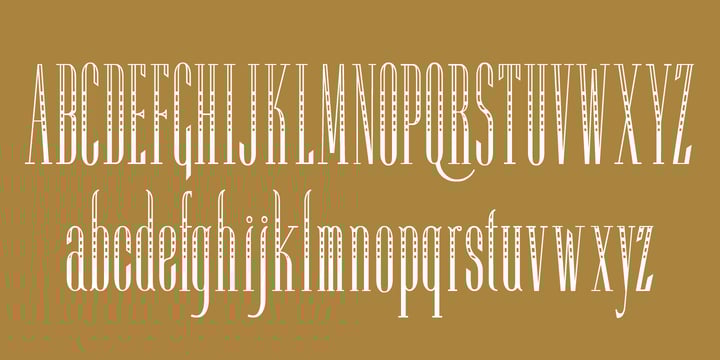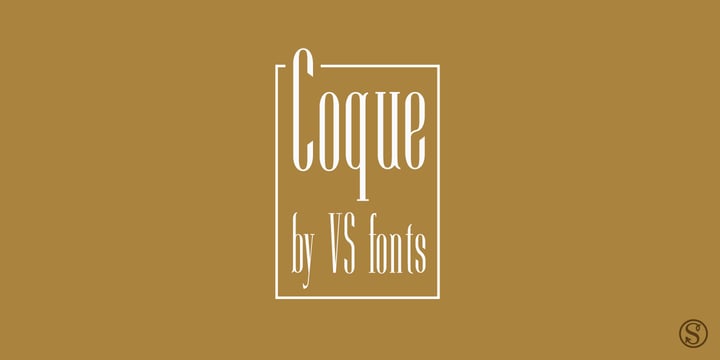
Coque
Coque by VSF
Coque Font Family was designed by Vasil Stanev and published by VSF. Coque contains 6 styles and family package options. More about this family
About Coque Font Family
An elegant family designed to be legible while saving maximum row space.